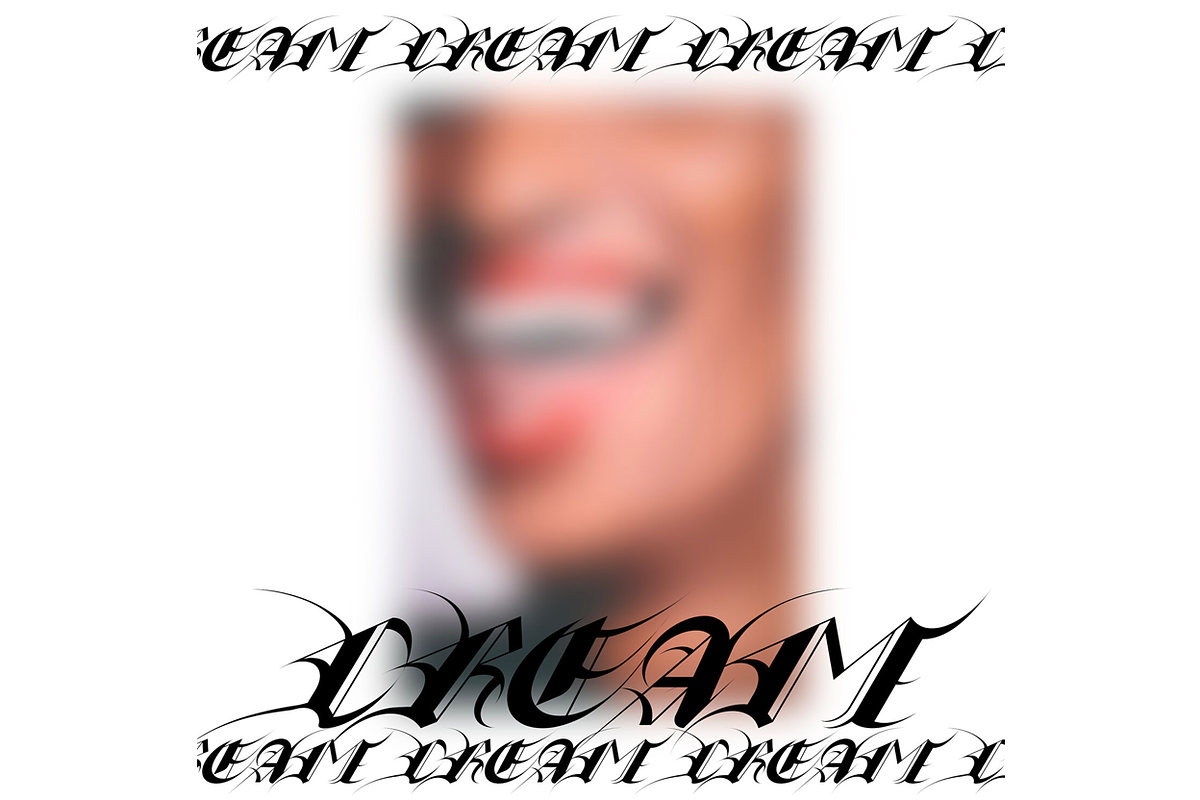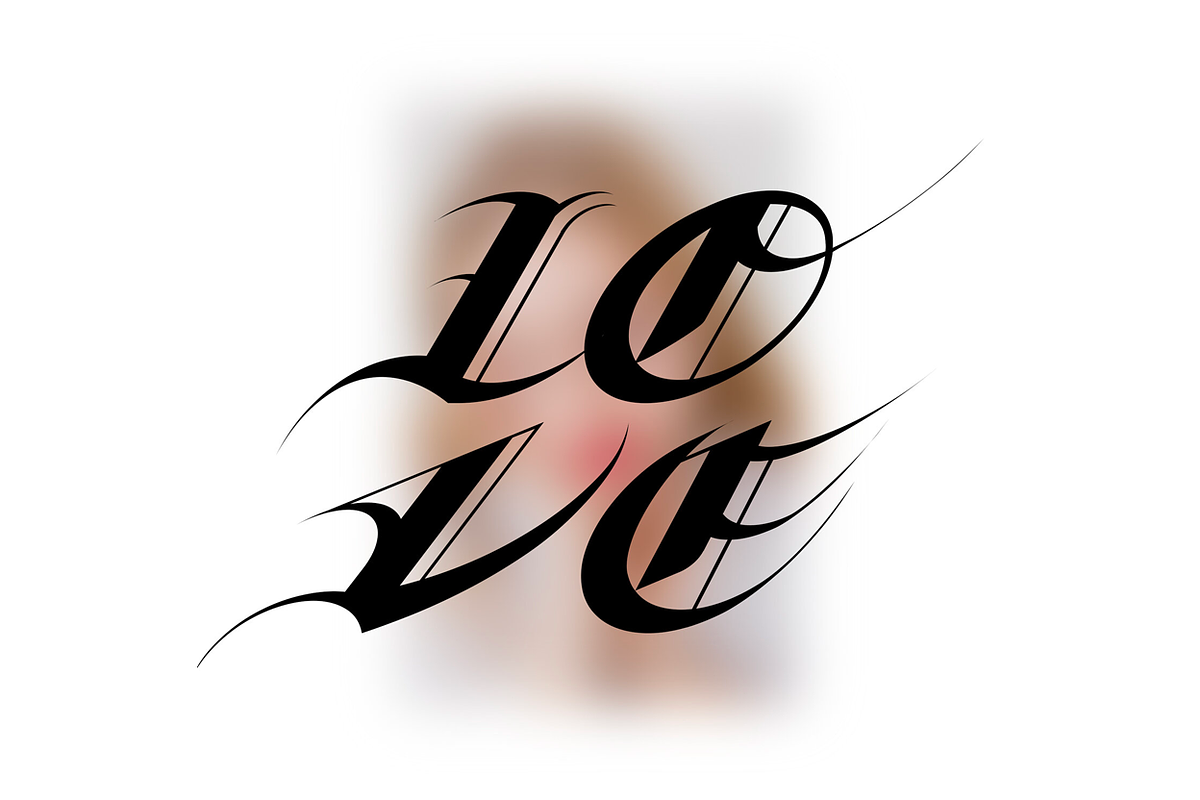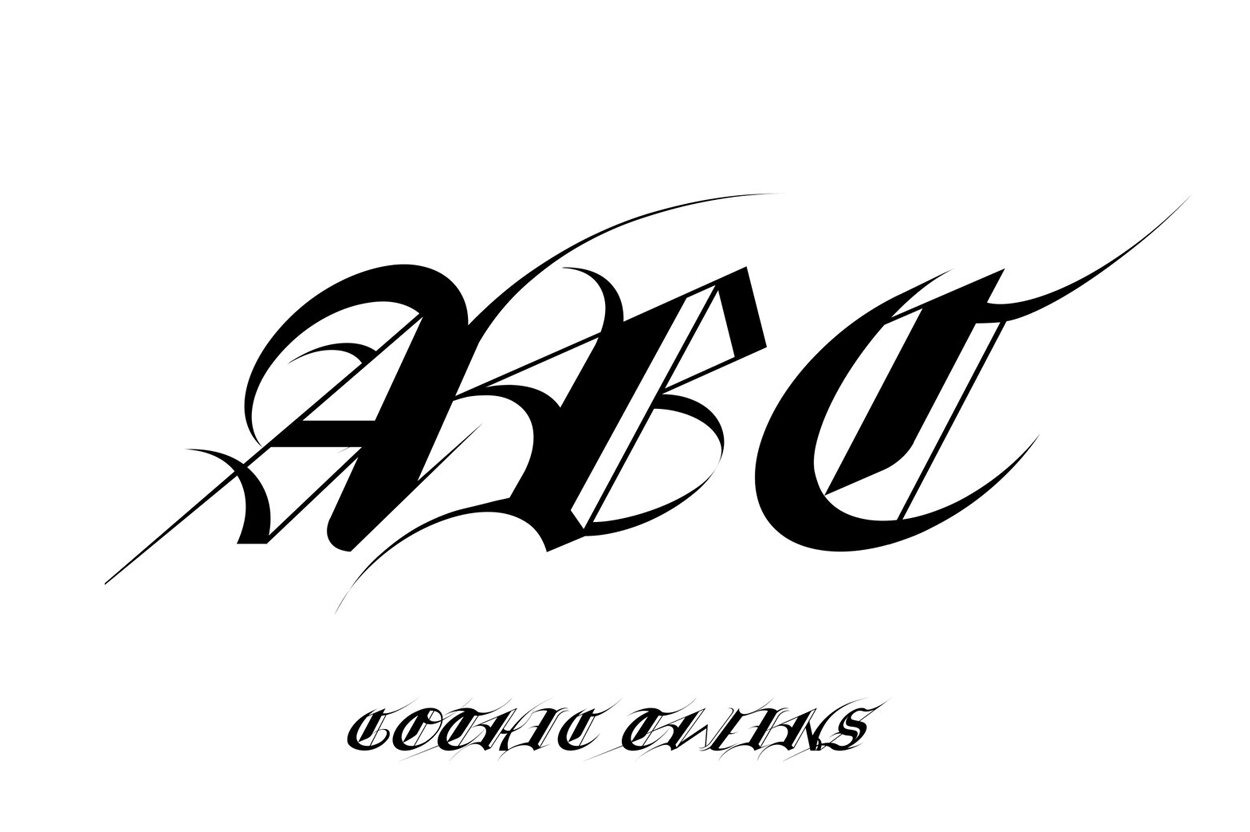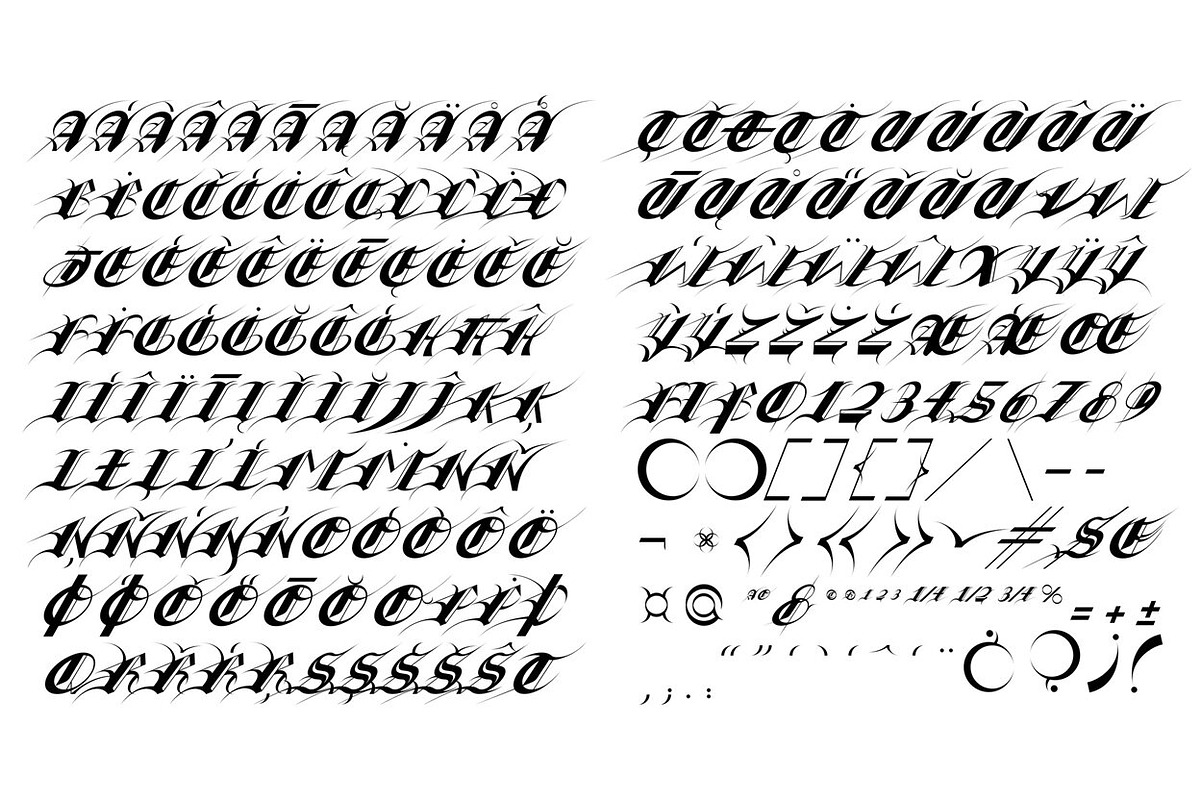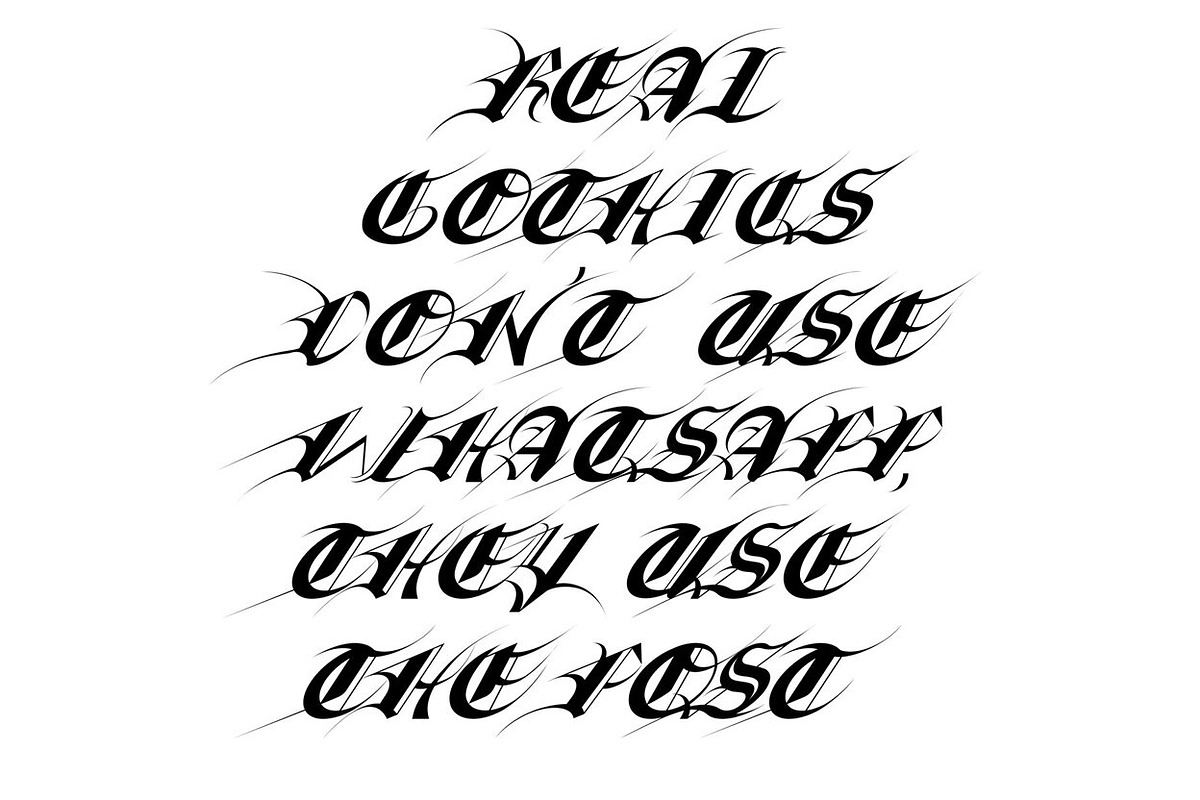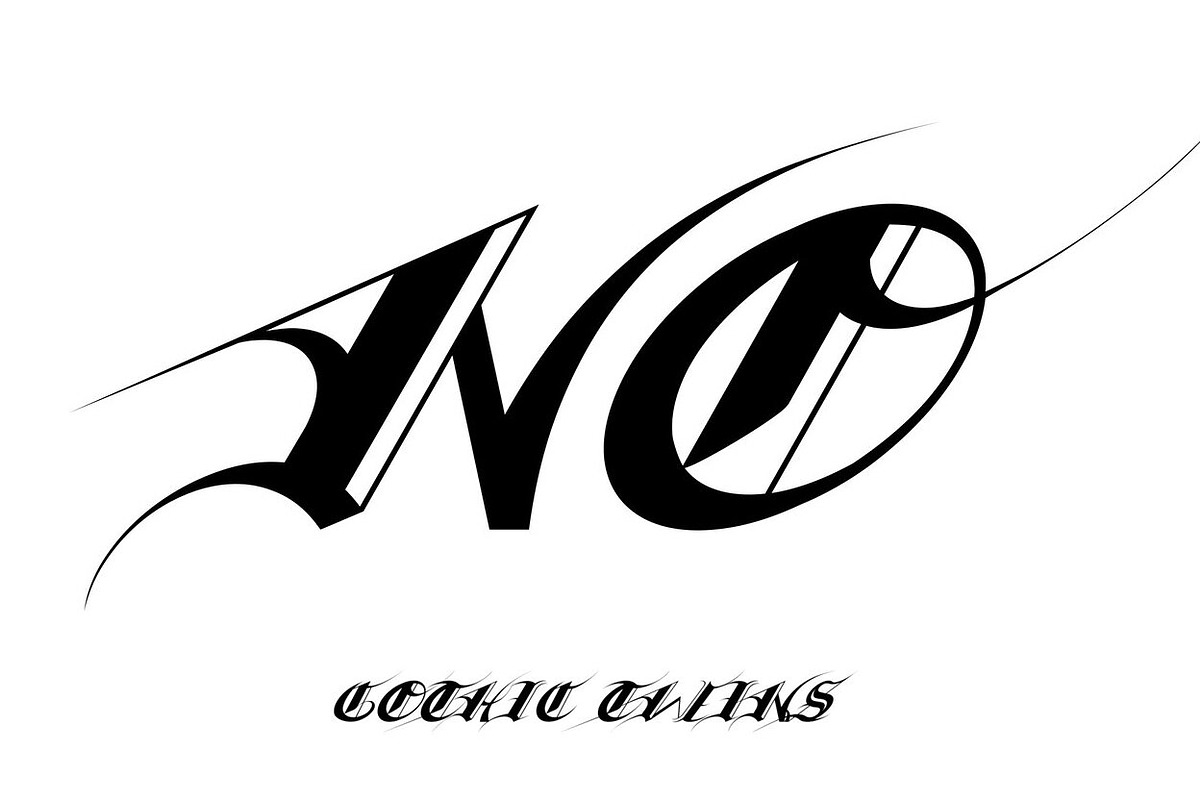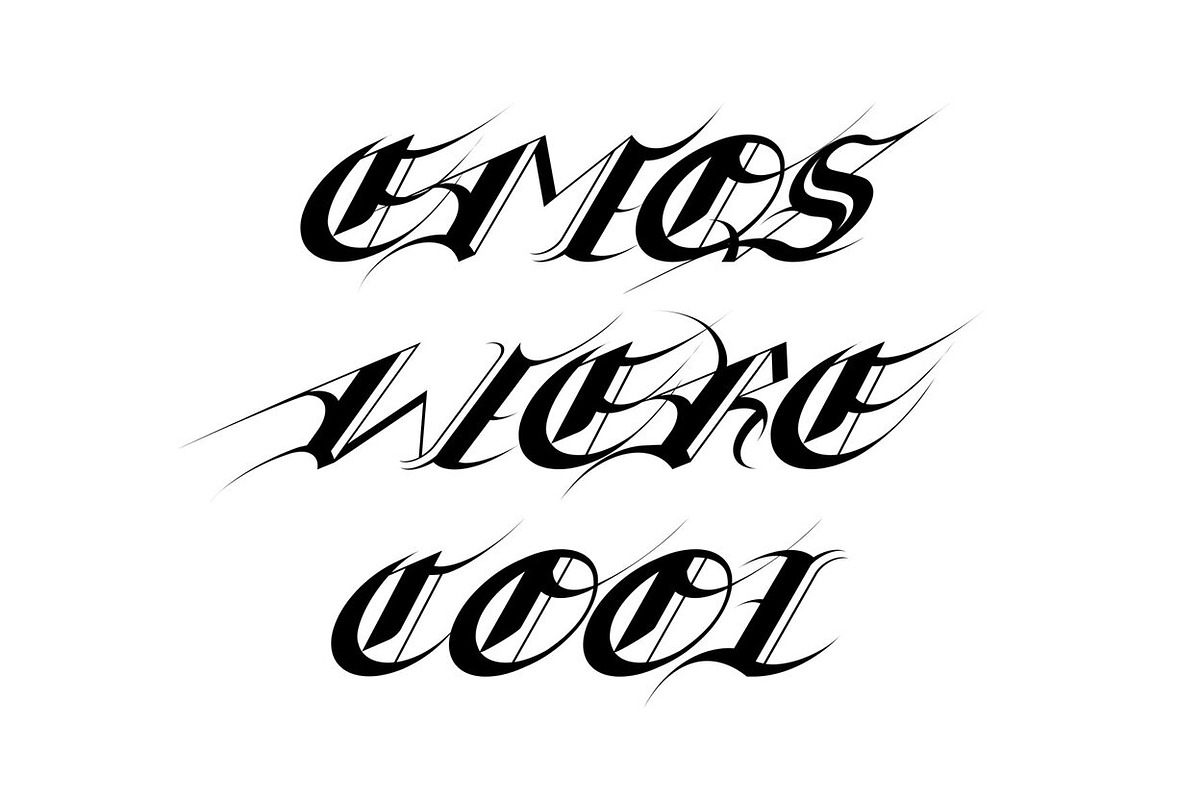
Gothic Twins Font
Gothic Twins , a fusion of medieval charm with contemporary flair, where it effortlessly harmonizes with other fonts, igniting boundless creative horizons. Infused with distinctive elegance, this typeface conjures grandeur while staying utterly adaptable, making it an ideal choice across various creative ventures, from print materials to web design, branding, and artistic endeavors. Dive into the enchanting realm of Gothic Twins and let your designs resonate with a touch of timeless medieval mystique, entwined with modern sophistication.